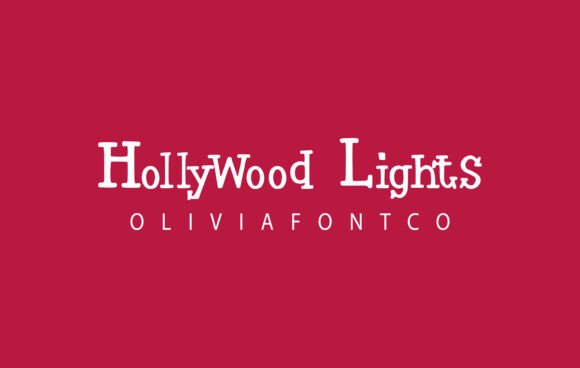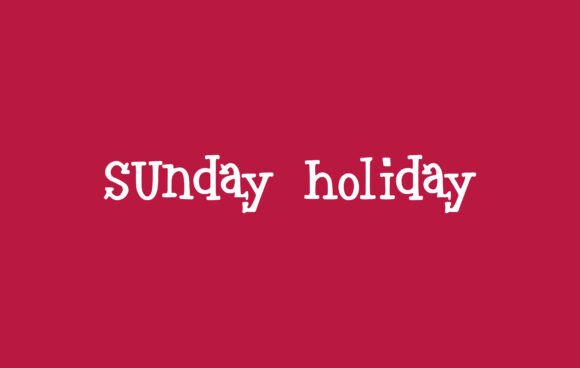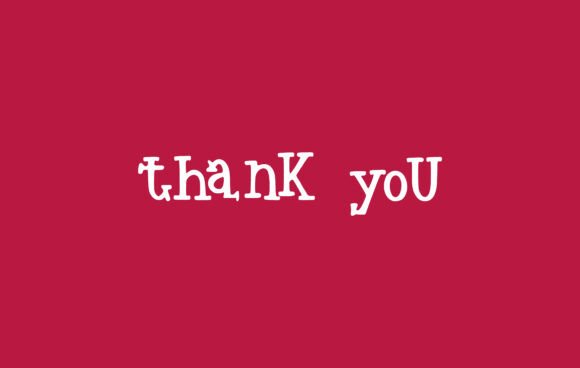
Hollywood Lights Font: A Quirky Title Font for Cricut Projects
About the Hollywood Lights Font
Crafted with precision, the Hollywood Lights Font is ready to bring your ideas to life. Hollywood Lights font is an authentic handwritten font with a romantic touch. Expertly designed to be a true favorite, this font has the potential to take your creative ideas to the highest level
Hollywood Lights excels in applications requiring a touch of romantic flair and vintage charm. It’s ideal for headlines, short text blocks on invitations or posters, and branding elements where a handwritten feel is desired. Its legibility is best suited for larger sizes; avoid using it for body text or long paragraphs.
However, the handwritten nature may prove less effective in user interfaces (UI) or situations demanding high readability at smaller sizes. Consider pairing it with a clean sans-serif like Montserrat for a modern contrast, or a classic serif such as Garamond for a more traditional feel. The contrast will balance the informal quality of Hollywood Lights.
This font projects a romantic, slightly nostalgic personality. It works well for brands focusing on vintage aesthetics, boutiques, wedding-related businesses, or any project requiring a touch of old-Hollywood glamour.